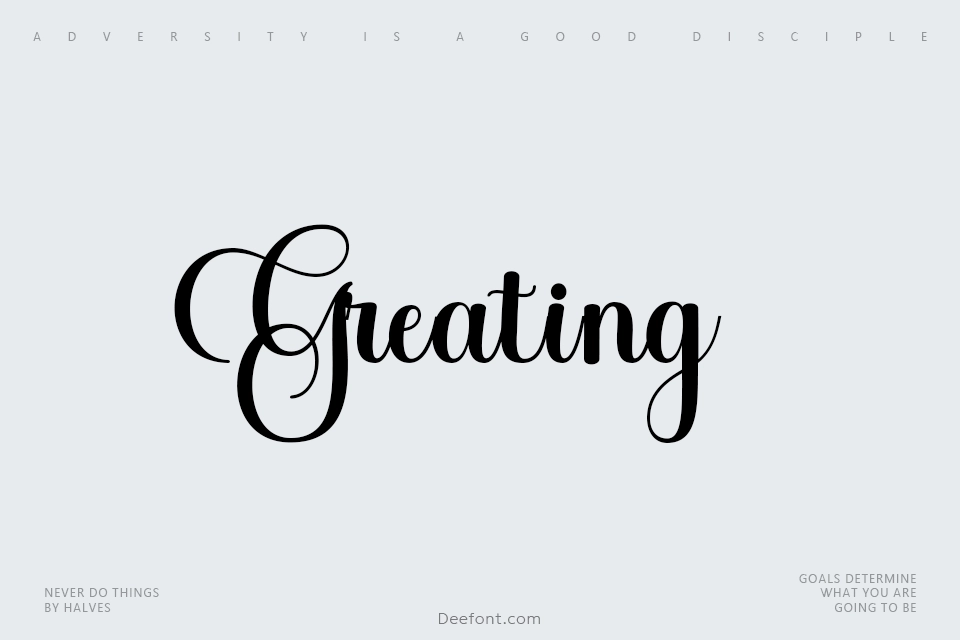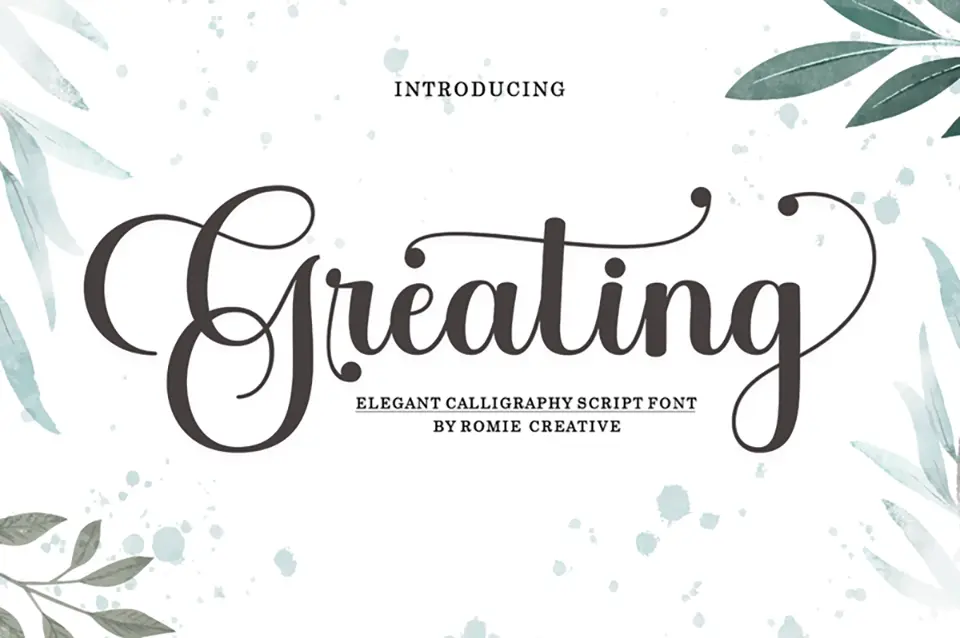
Greating Font
Greating is a modern and elegant calligraphic script font crafted by Romi Rahmadi. This professional typeface features beautiful creative strokes with flowing lines and authentic character variation, making it perfect for wedding invitations, greeting cards, branding projects, and decorative applications. With comprehensive support for uppercase and lowercase letters, numbers, punctuation marks, and multilingual characters, this font brings elegance and sophistication to any design project. The combination of formal calligraphic elements with contemporary aesthetics creates a versatile typeface suitable for both formal and informal creative applications, including logos, websites, banners, and packaging design.